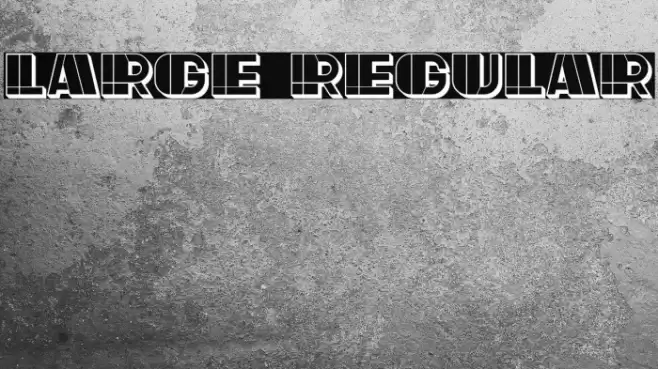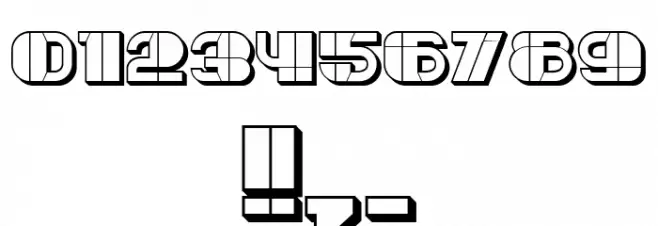
Large Regular Font
Large Regular Description
This font features a bold, geometric design with a three-dimensional effect created by its outlined and filled sections. The letters are uppercase and have a strong, impactful presence, making them ideal for attention-grabbing headlines or titles. The numbers and special characters follow the same style, ensuring consistency across all text elements. The font's structure is clean and modern, with a slight retro feel due to its blocky, outlined appearance. The spacing between characters is normal, allowing for clear readability despite the intricate design.
A bold, geometric font with a 3D effect, perfect for impactful headlines from Uncategorized fonts.